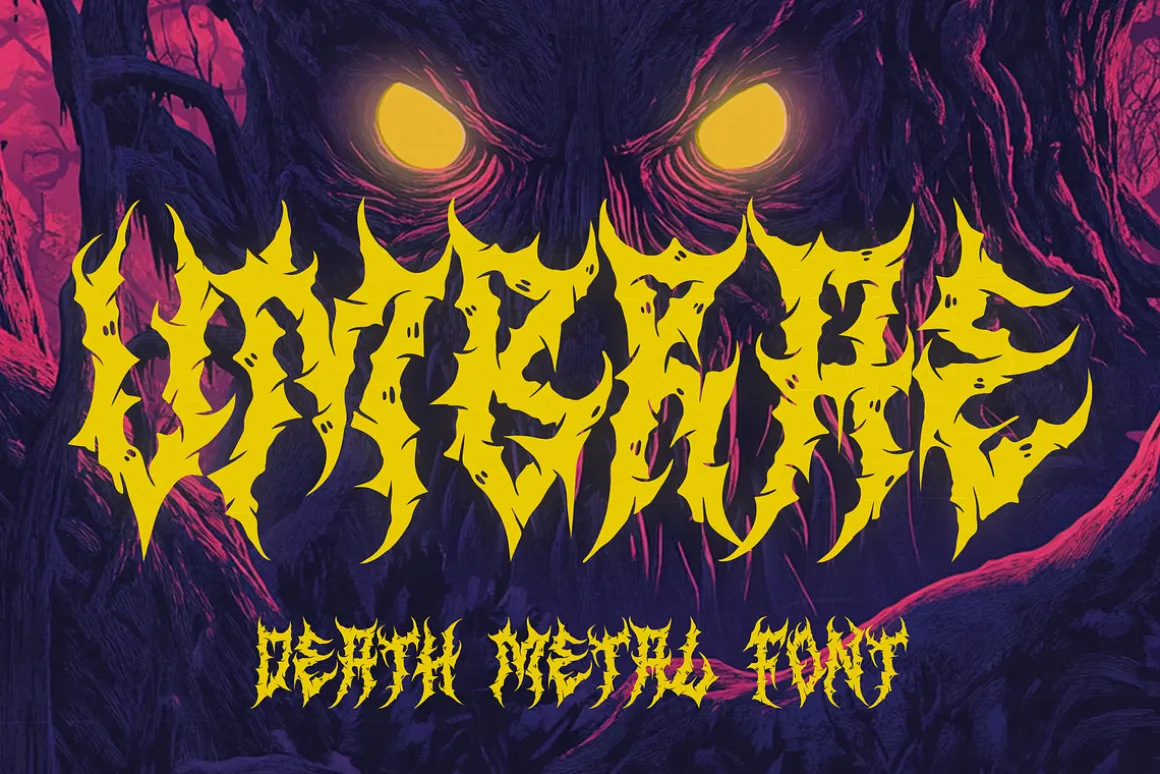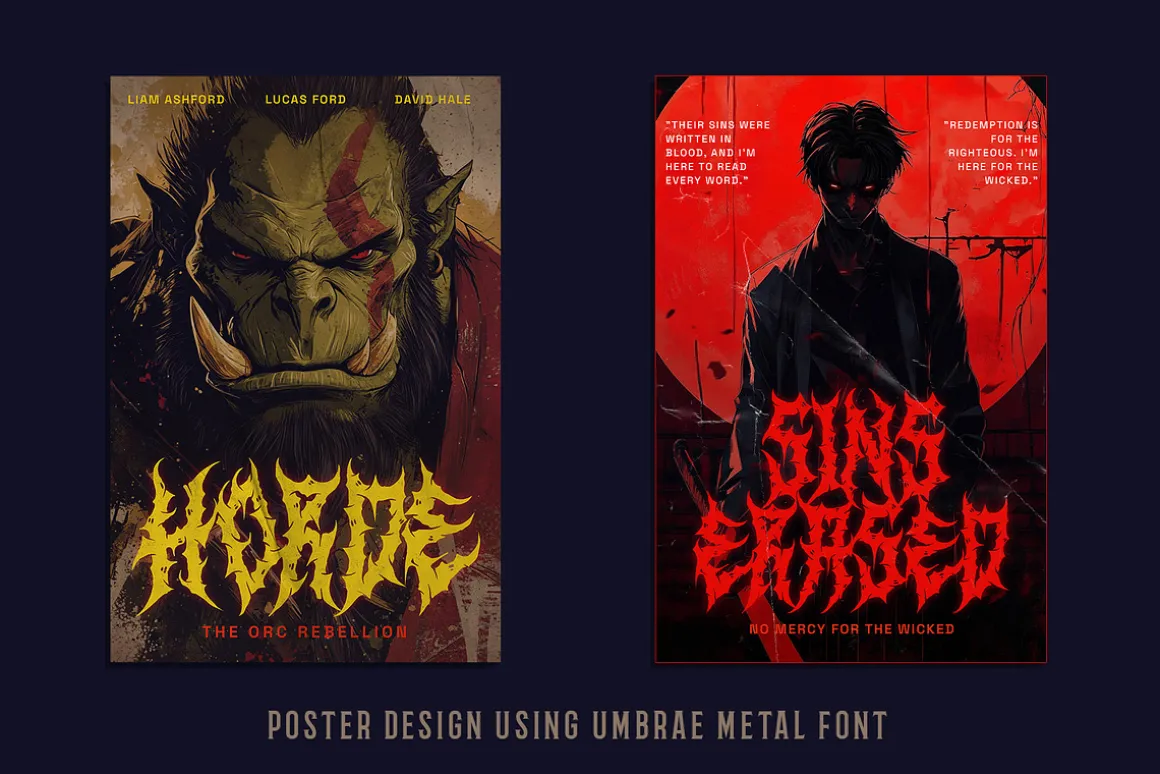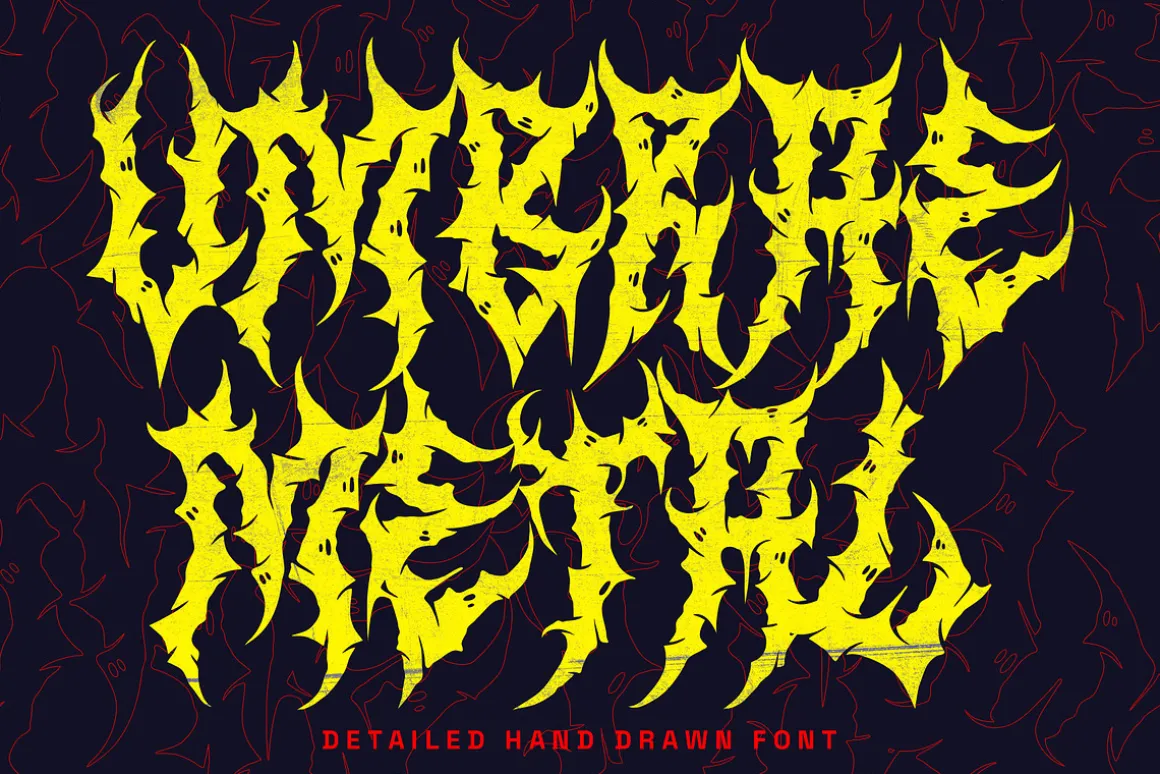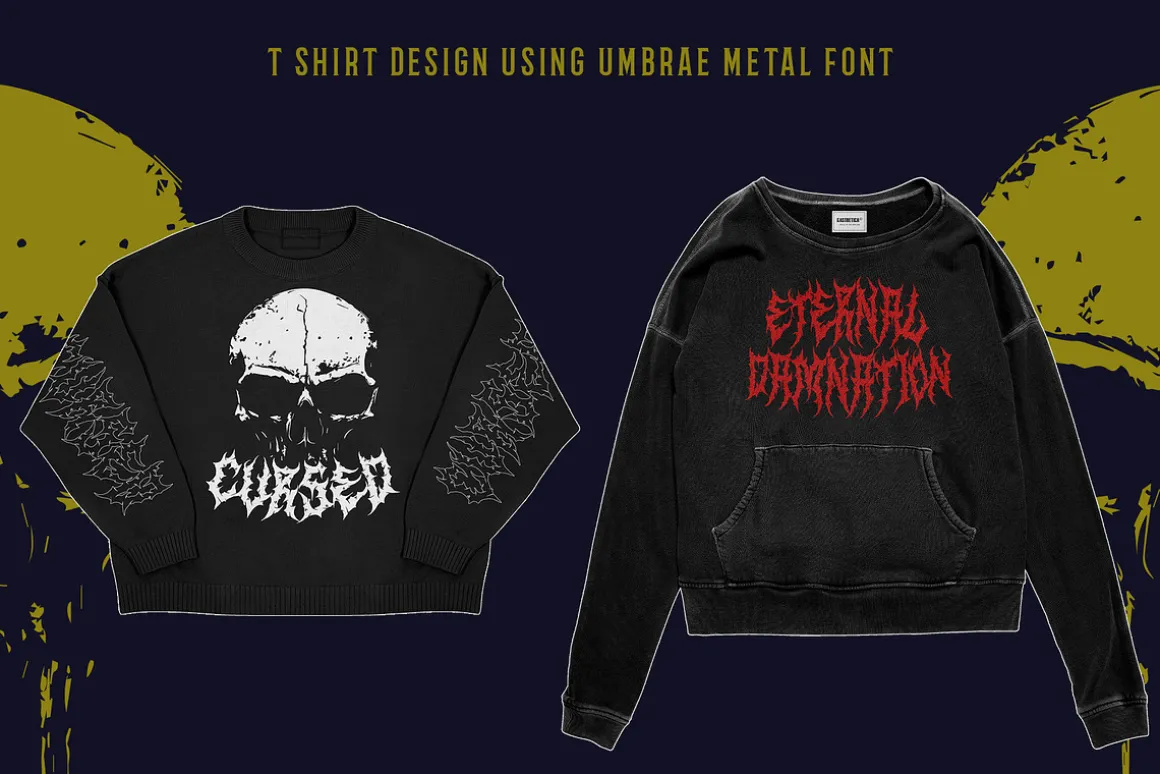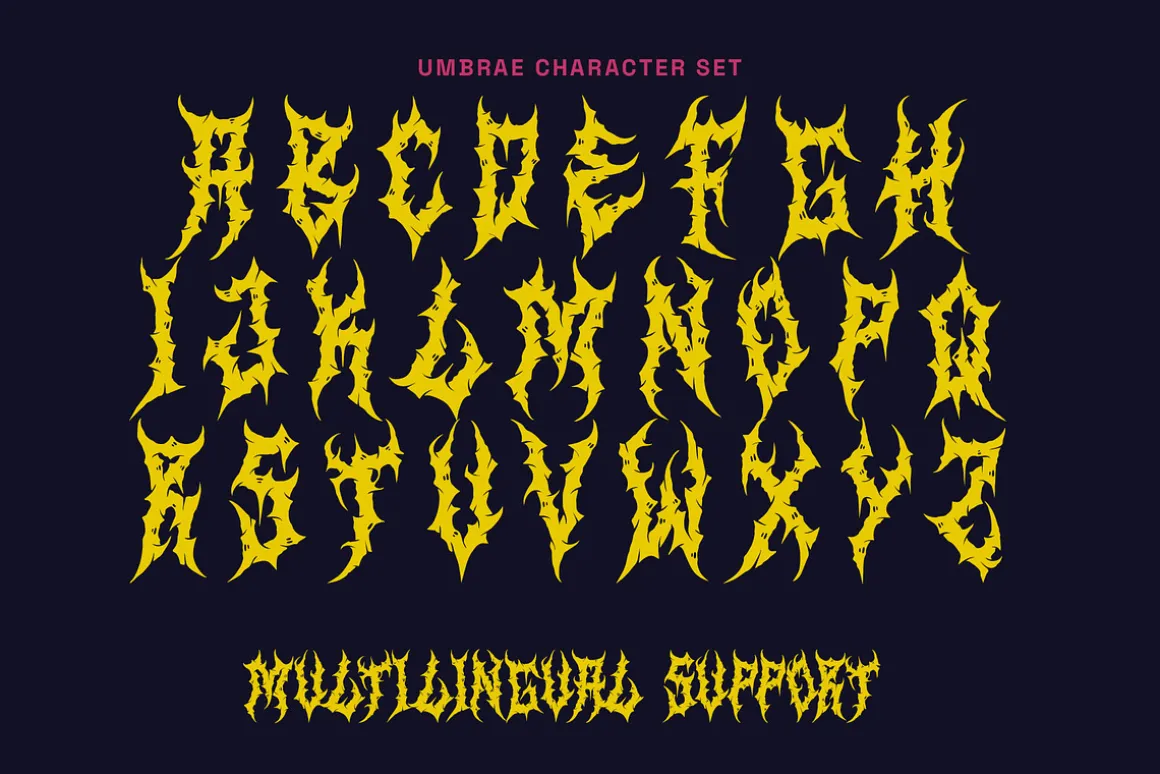
Enter the shadows with Umbrae, a black metal-inspired typeface crafted to evoke the sinister and raw energy of the darkest realms.This exclusive, high-quality font is adorned with sharp, haunting details, capturing the essence of the black metal aesthetic.With a wide array of alternate characters, Umbrae offers versatility for designing band logos, posters, album covers, t-shirt graphics, and more. Its bold, jagged form is easy to use and modify, making it perfect for creating ominous, unforgettable designs. Embrace the darkness and let Umbrae add a brutal edge to your next project.